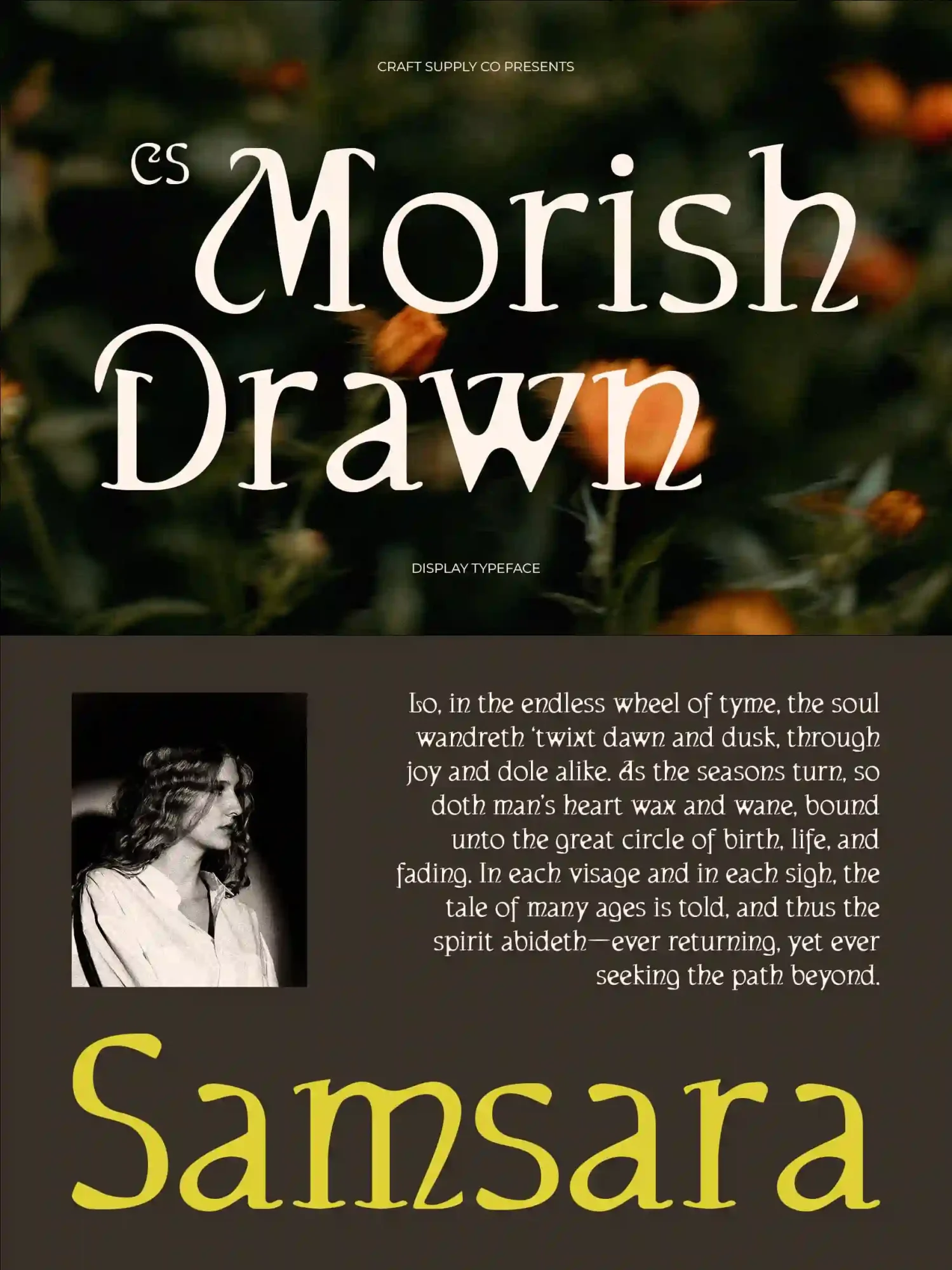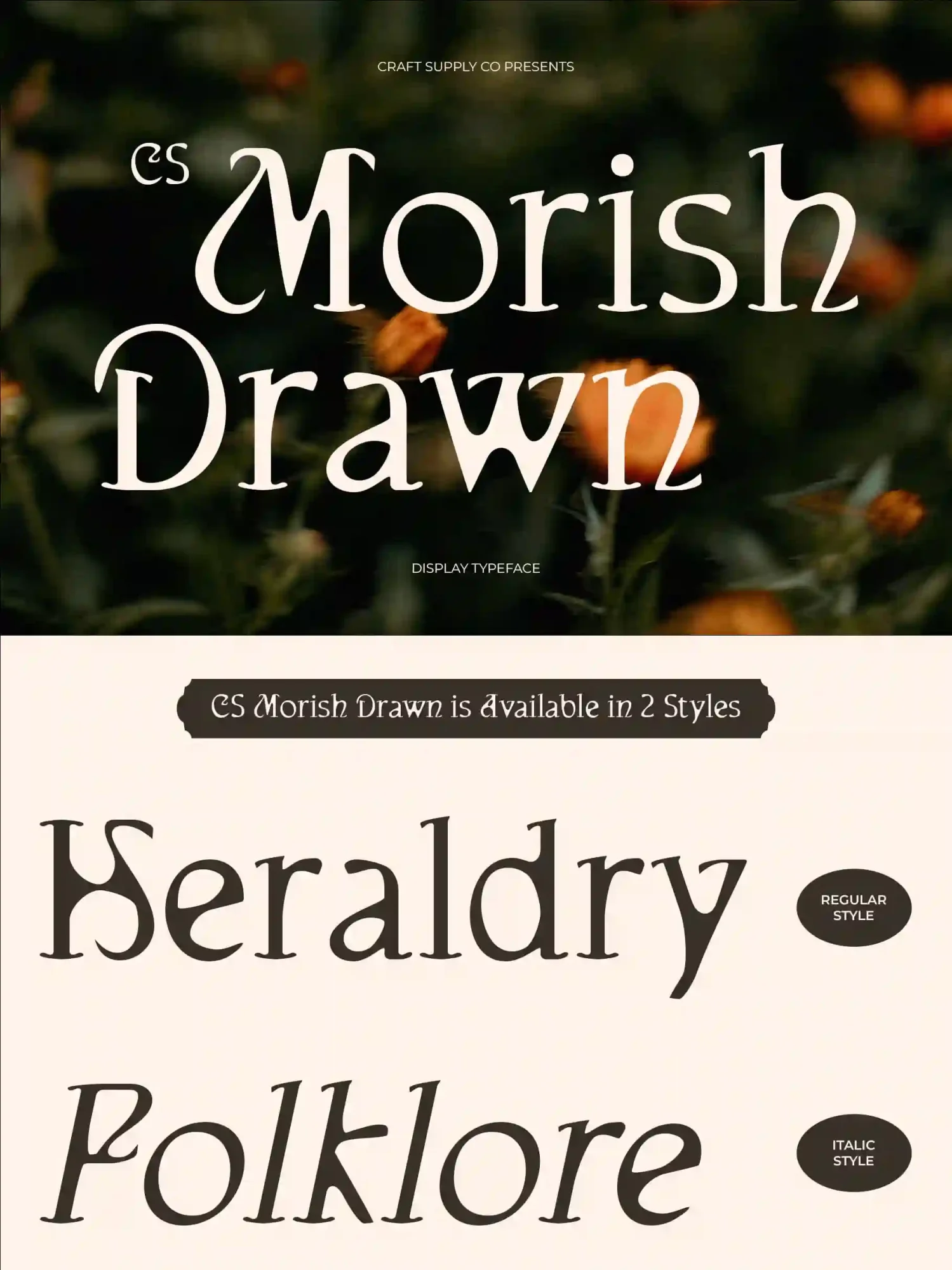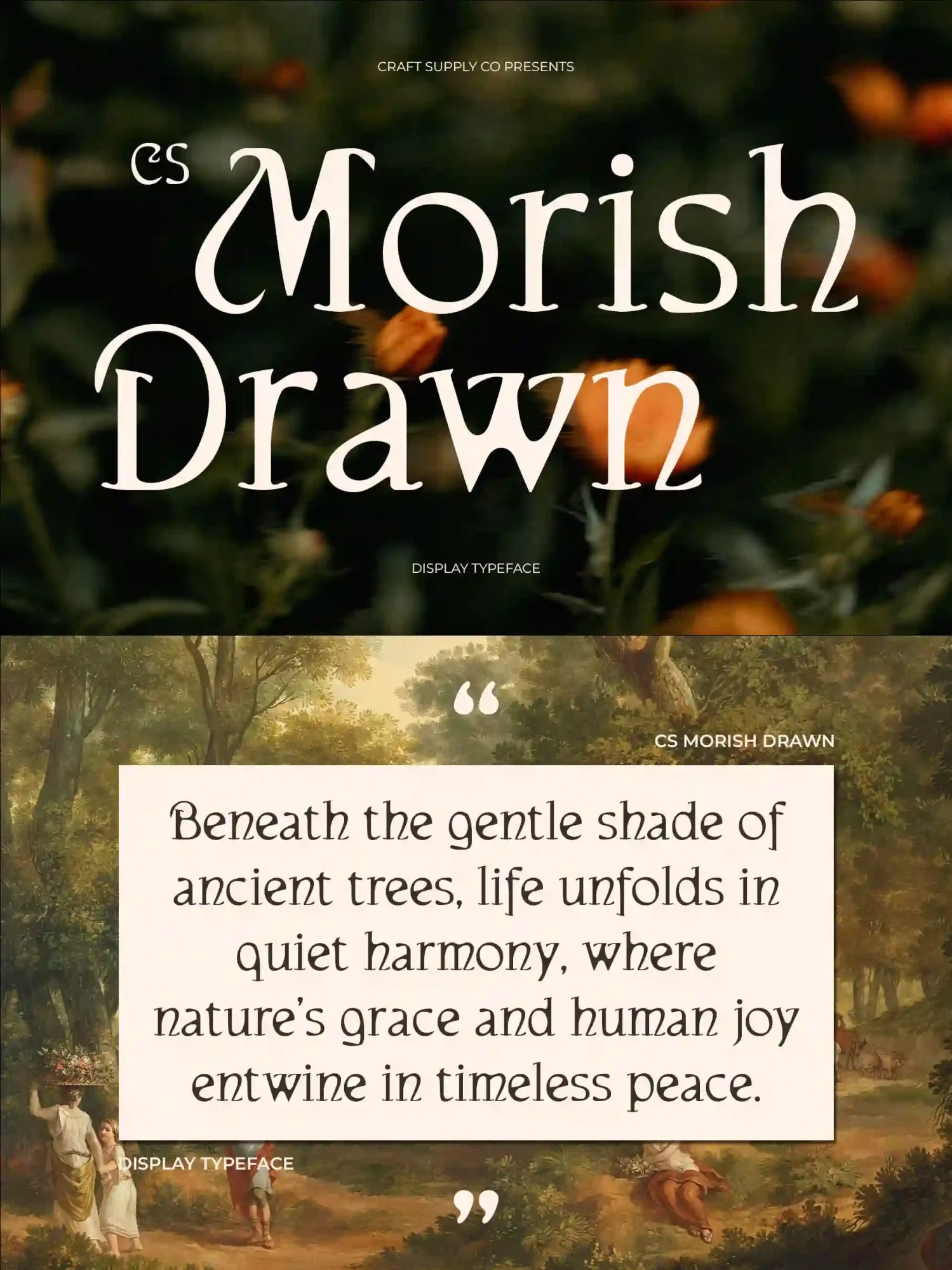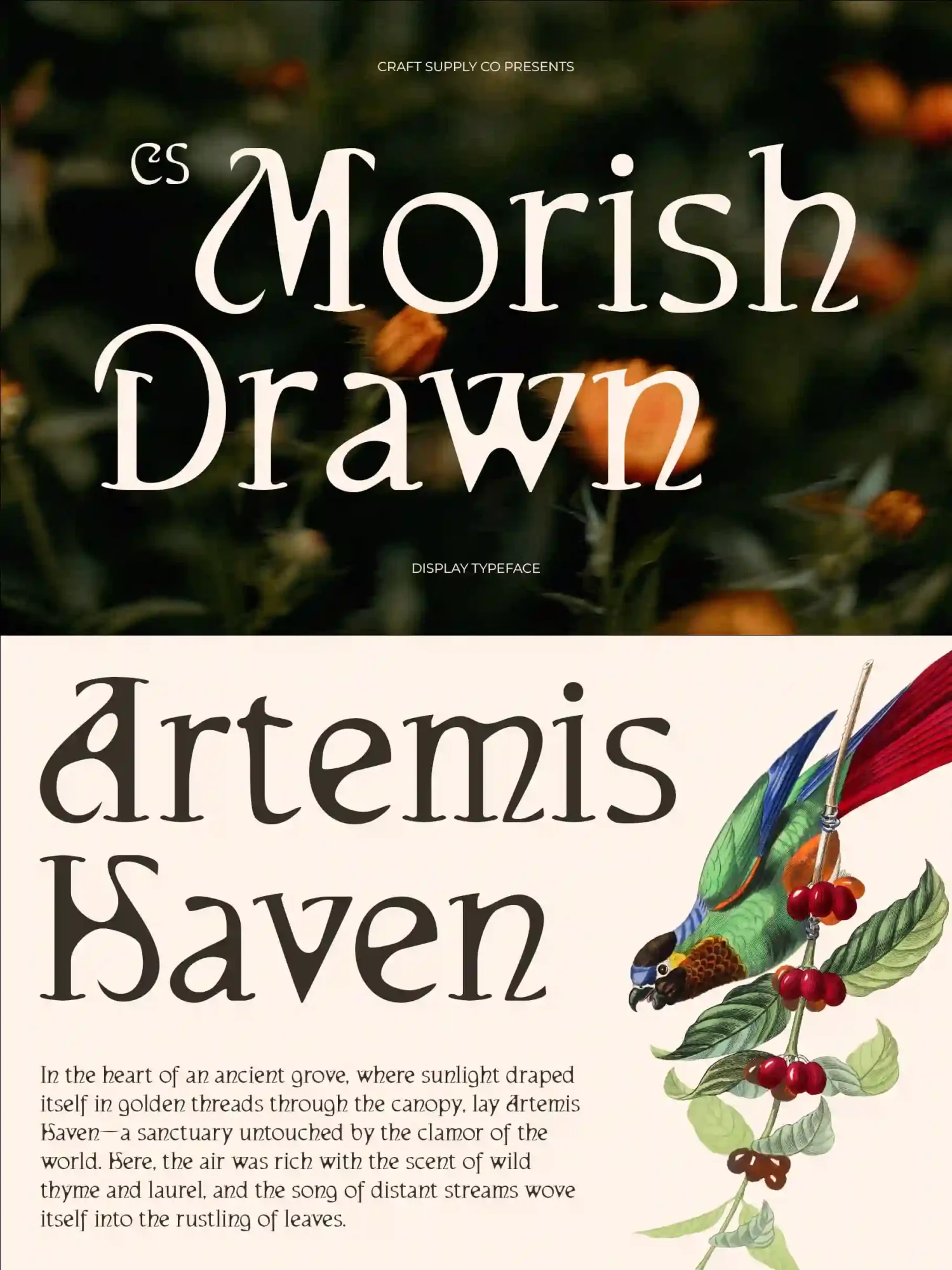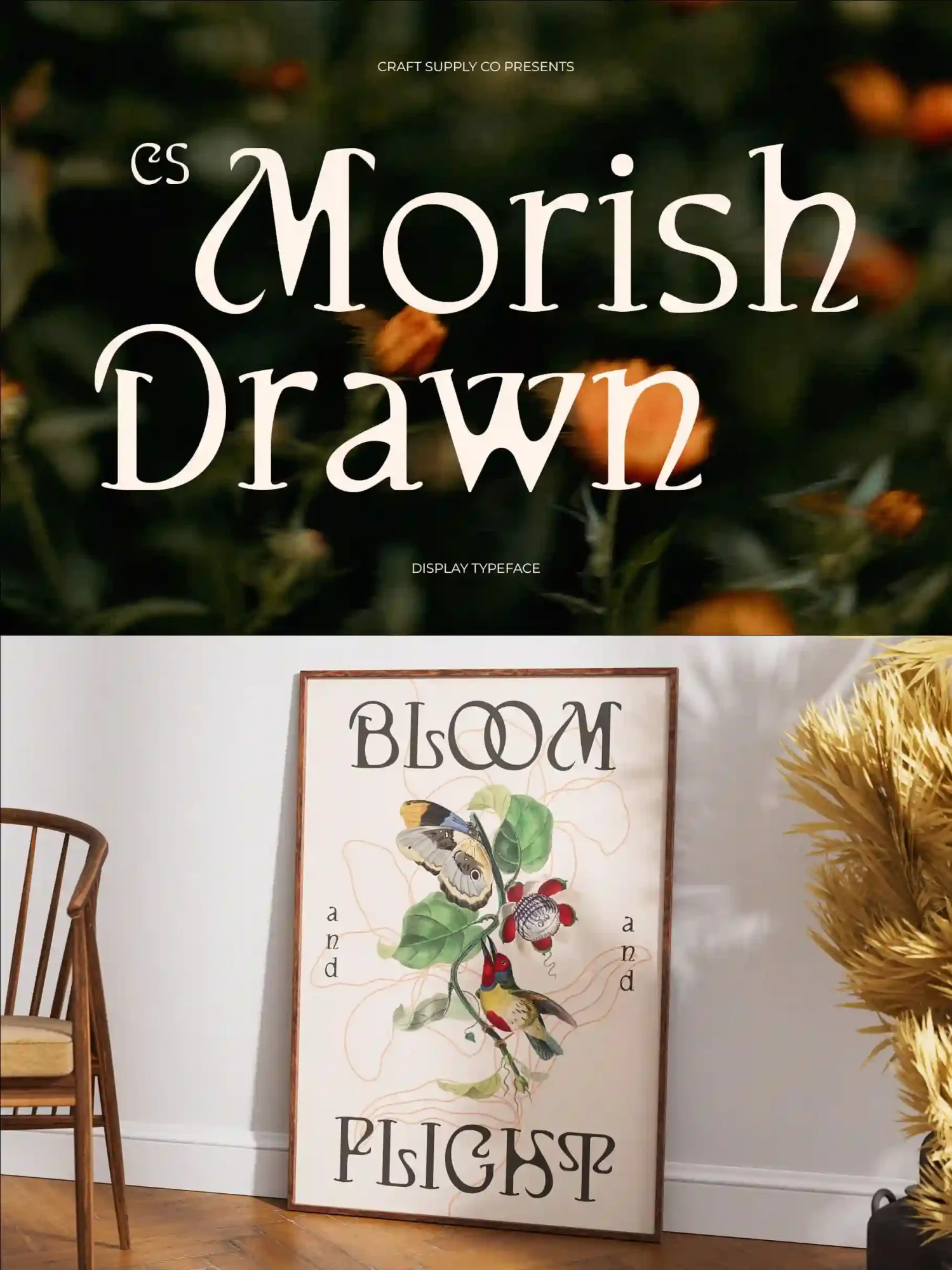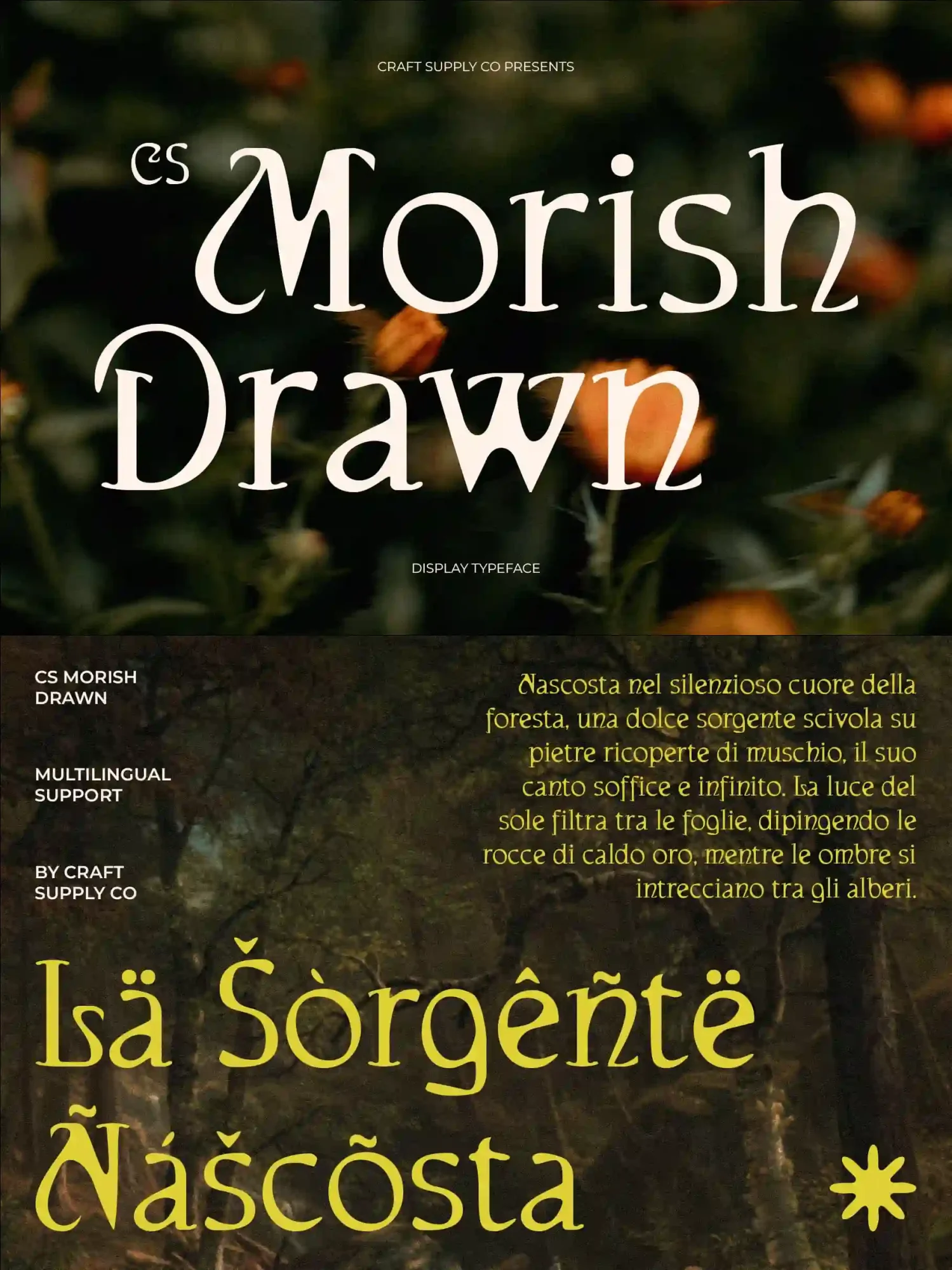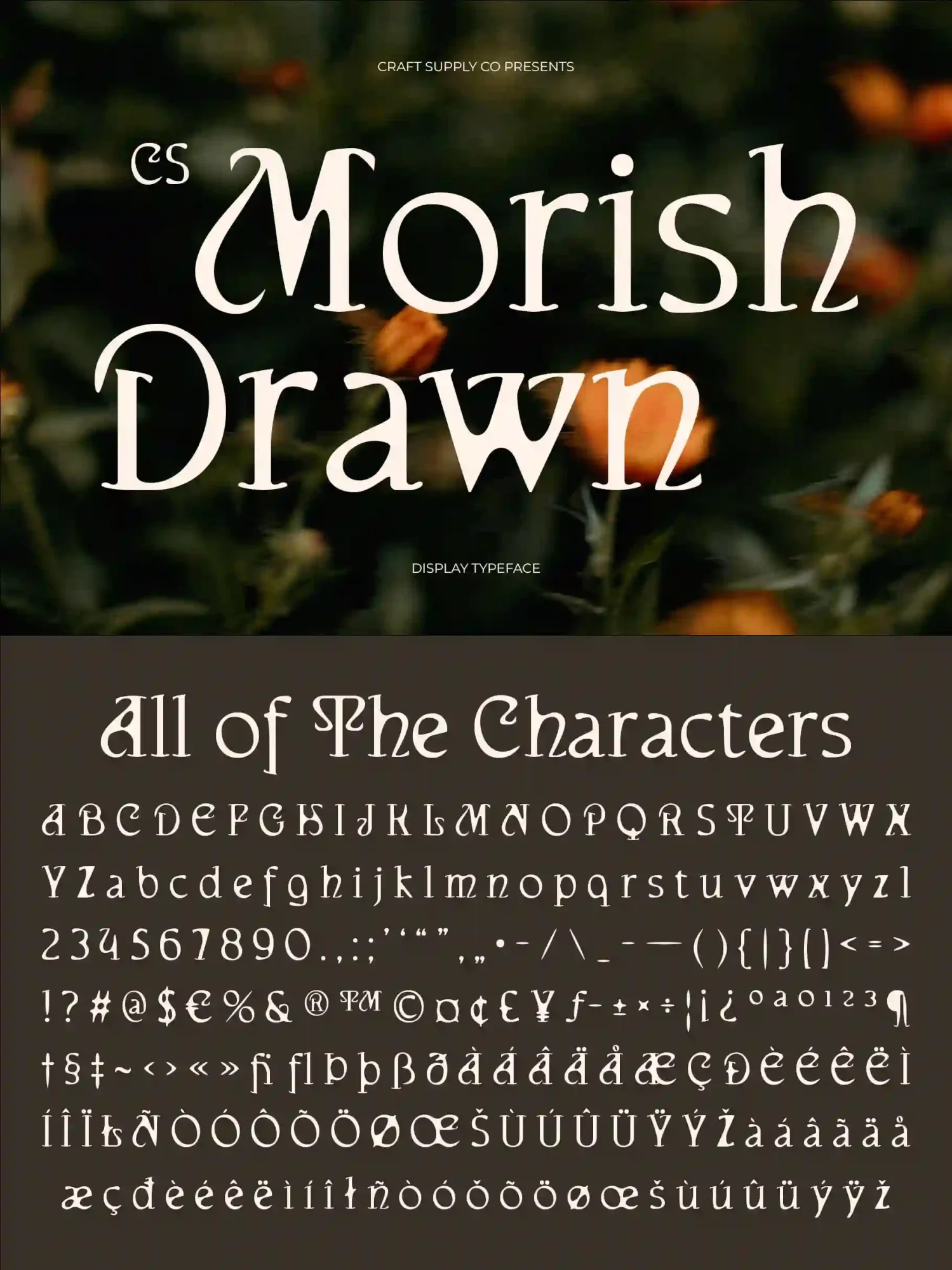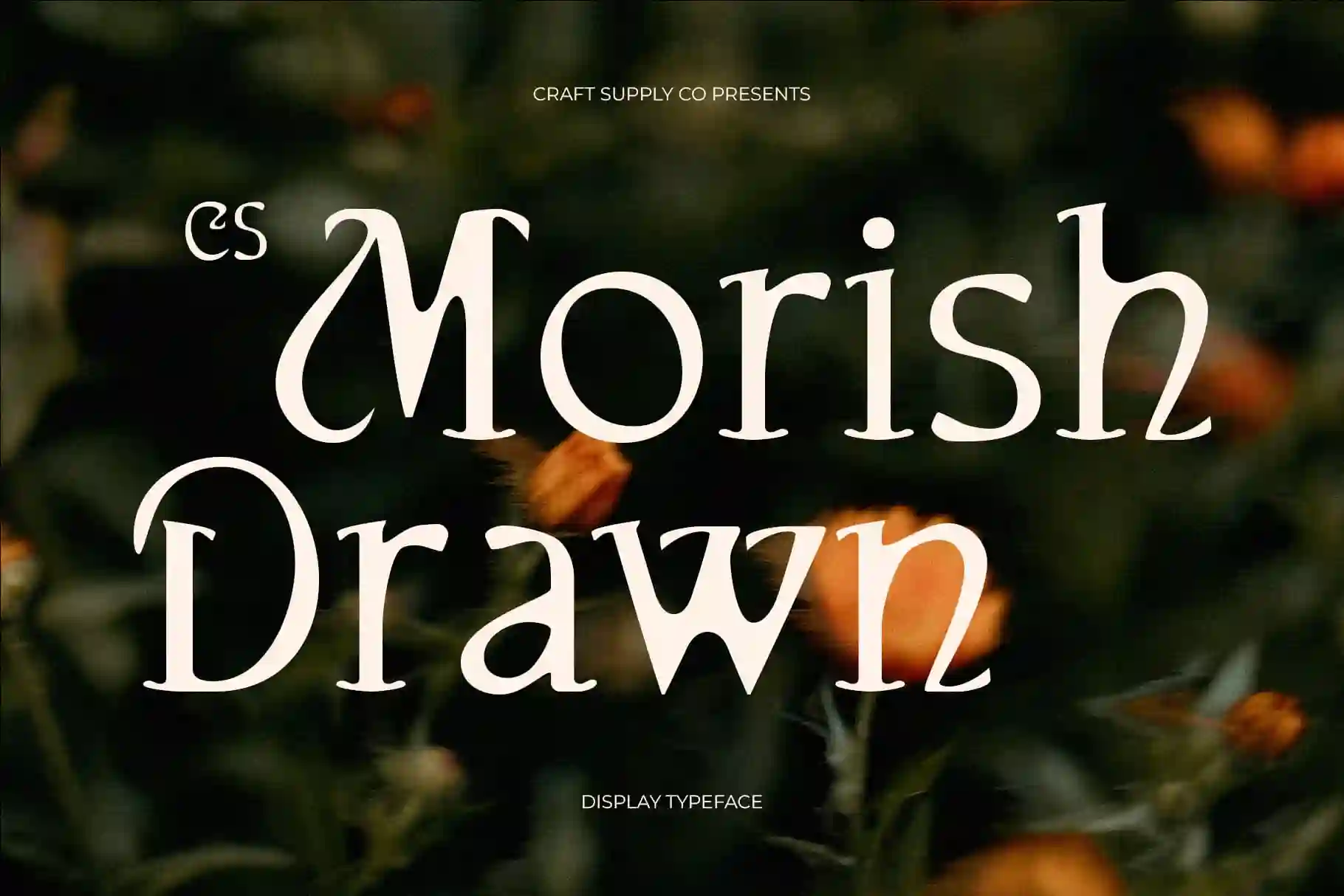
CS Morish Drawn – Classic Display Serif with Uncial Elegance
Distinctive Uncial Style
CS Morish Drawn features a unique uncial-inspired design, blending traditional serif curves with a refined, elegant touch. Its classic letterforms convey timeless sophistication while standing out as a display font.
Artistic Drawn Effect
Enhanced with a drawn effect, the font exudes a handmade, textured quality. This artistic detail adds warmth and character, transforming each letter into a visually engaging element that captures attention. Its combination of classic forms and handcrafted artistry ensures every project gains a memorable, refined, and creative appeal.